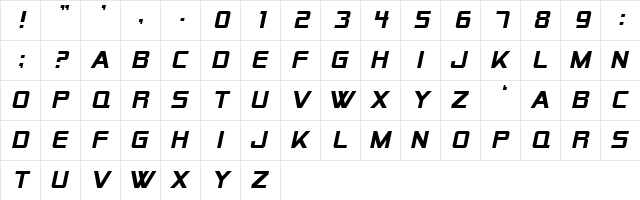
SF Alien Encounters Solid Italic
| Foundry | ShyFoundry |
| Designer | Derek Vogelpohl |
Design Context for SF Alien Encounters Solid Typeface
SF Alien Encounters Solid offers clean, dependable letterforms without strong stylistic allegiance, making it a practical choice for designers who need flexibility. The slanted form adds forward momentum and visual energy.
Pro Tip: Try SF Alien Encounters Solid for annotation and caption copy alongside an upright companion — the contrast in angle creates a dynamic but ordered typographic system.